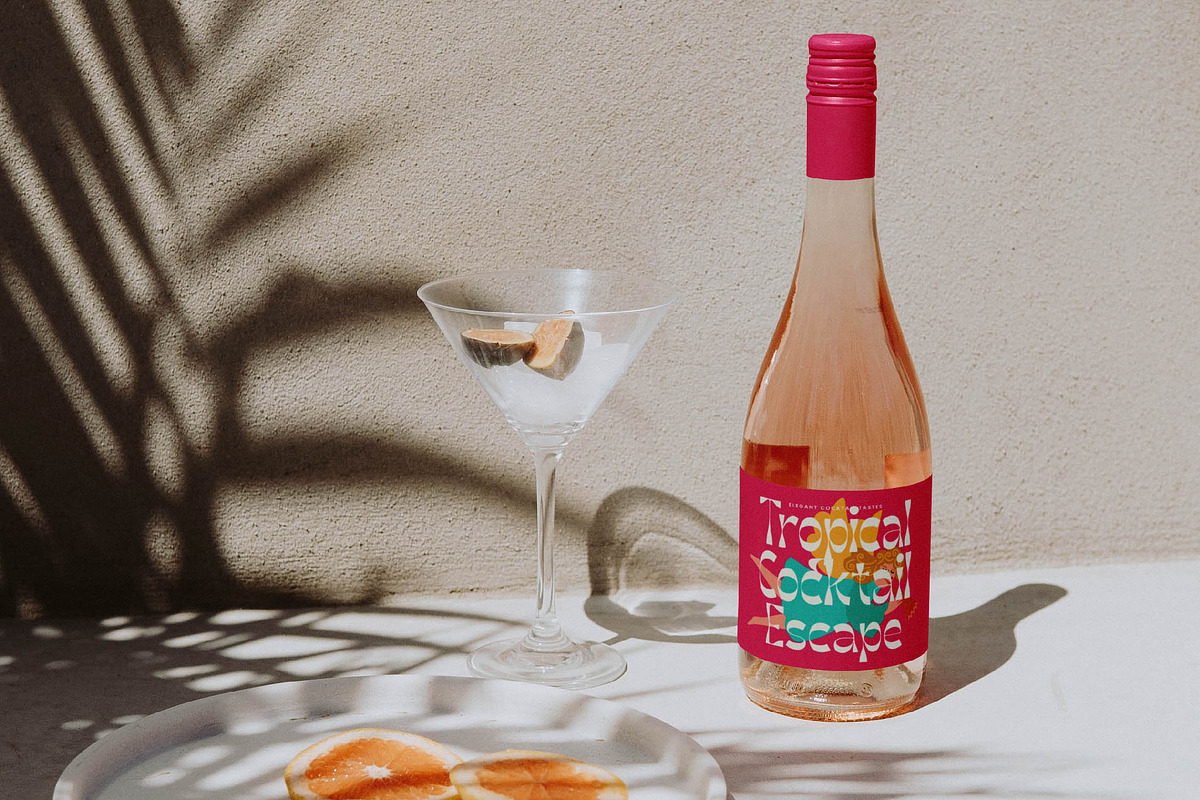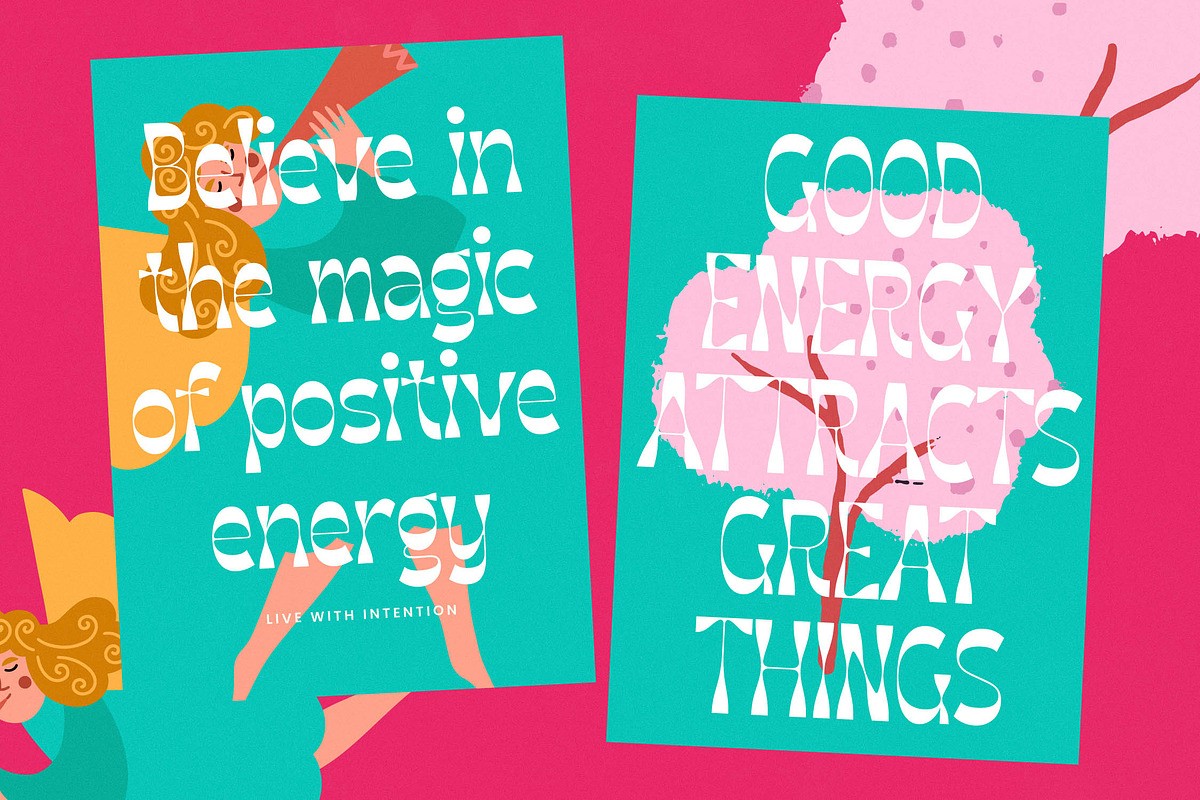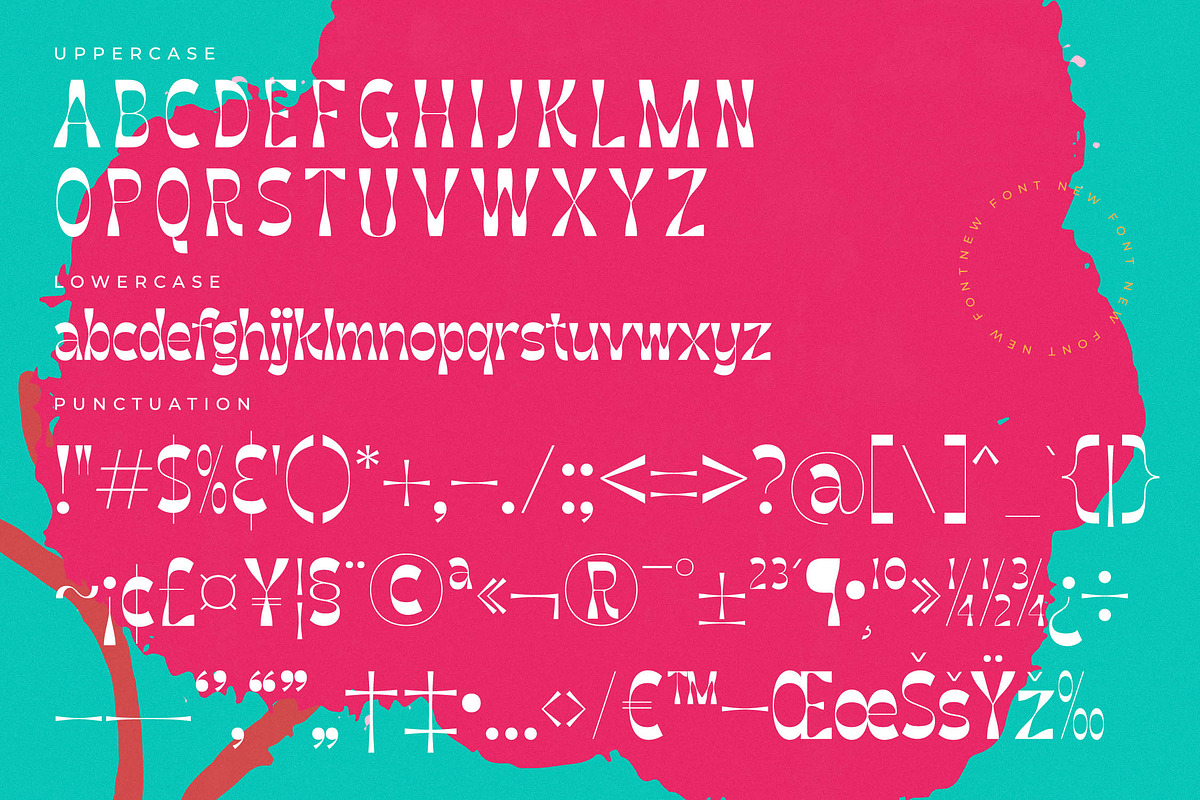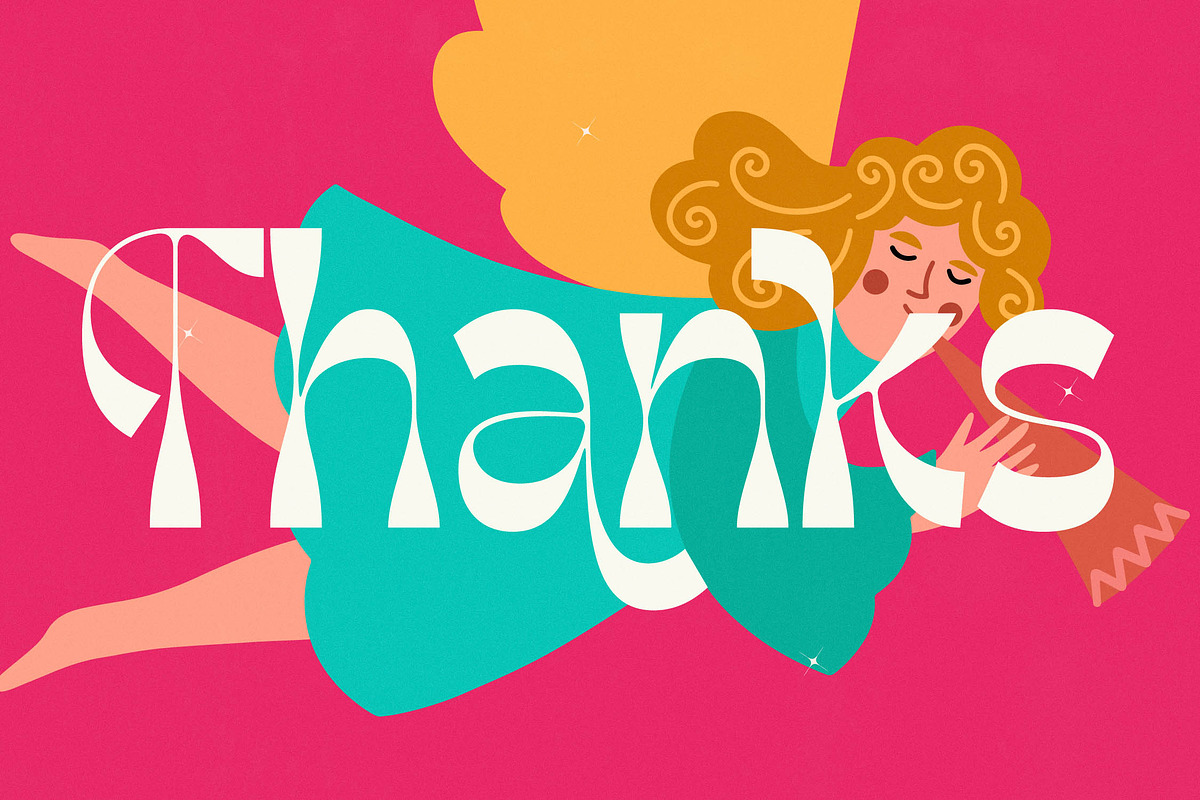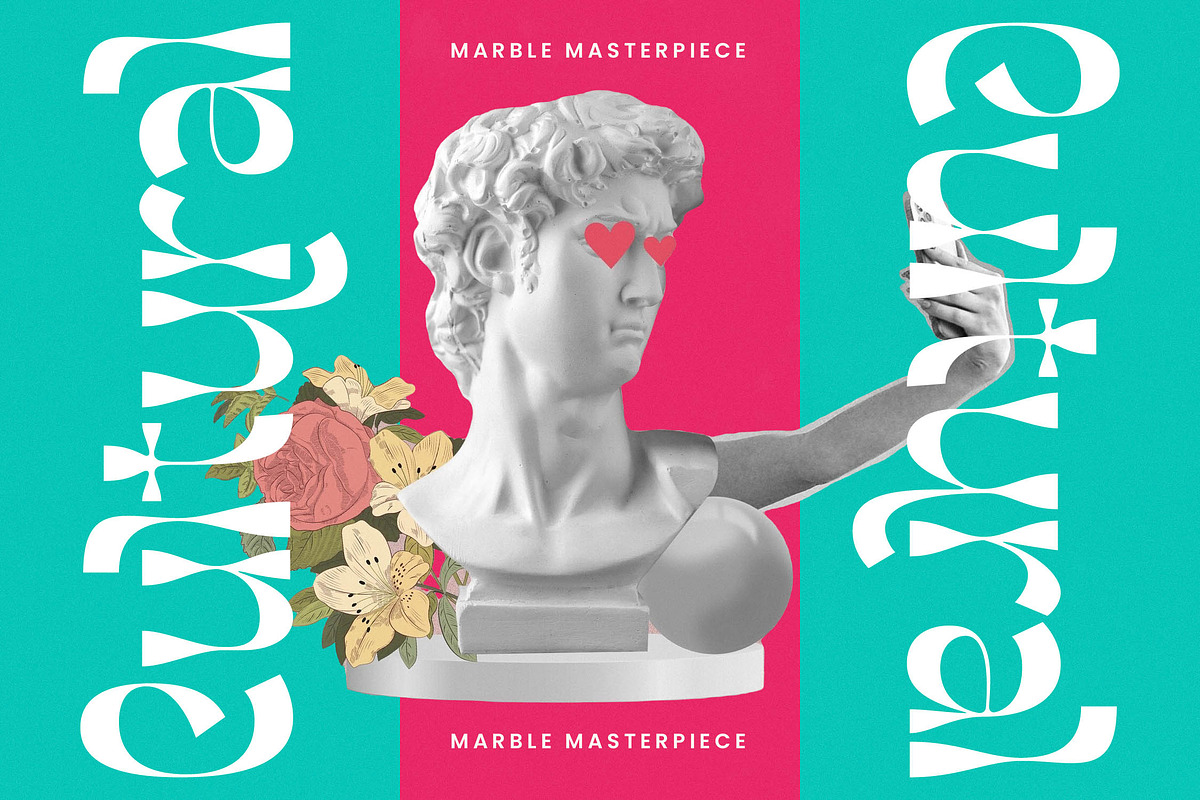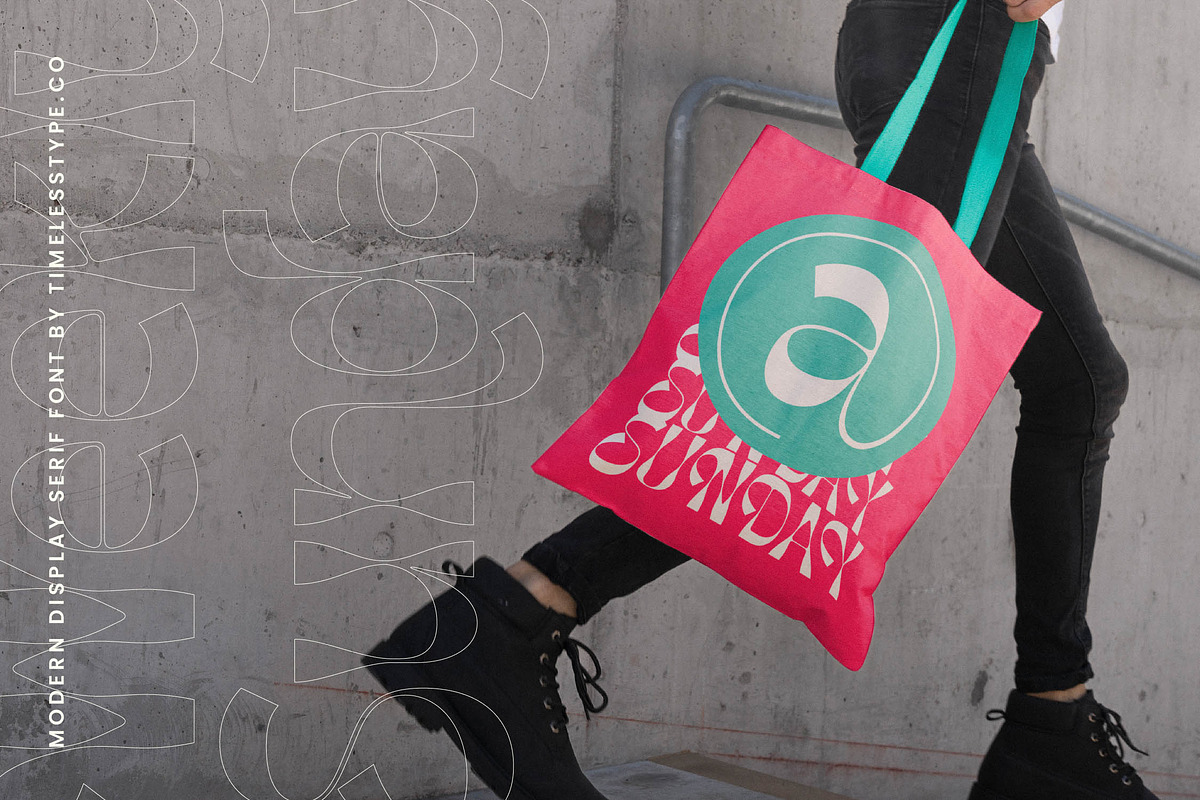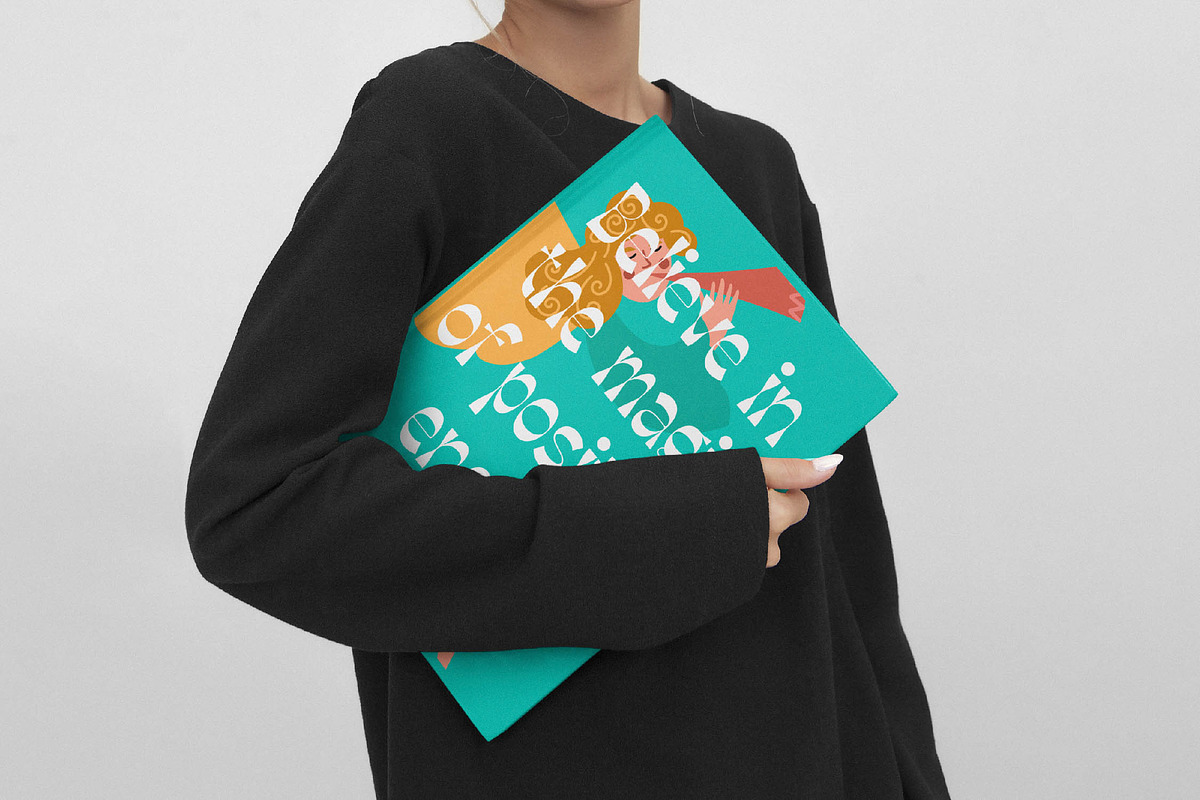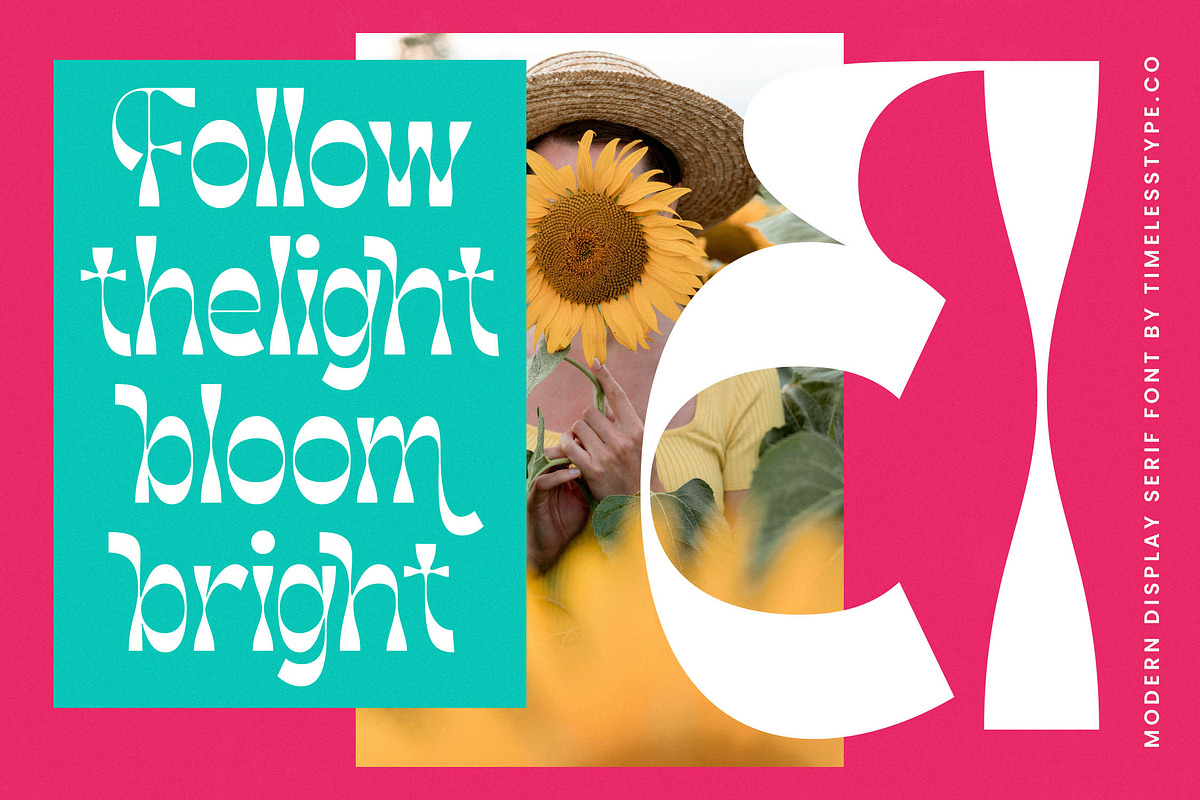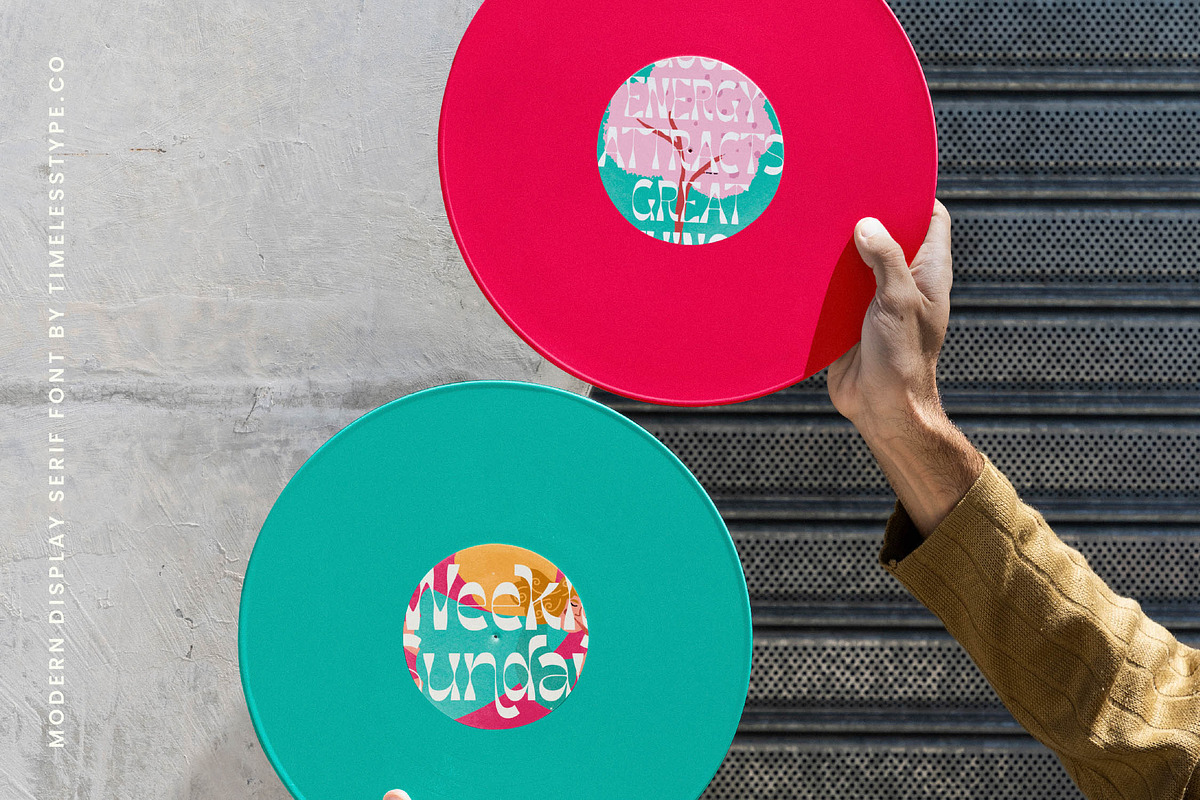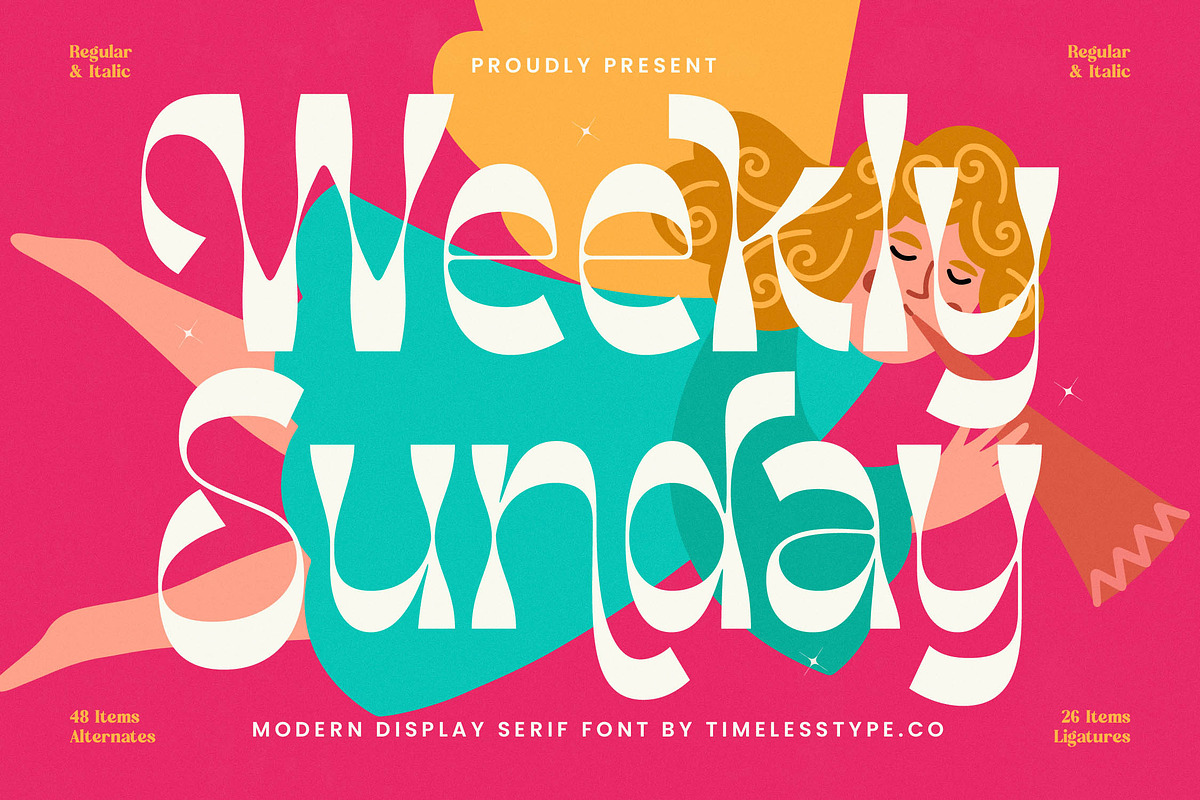
Weekly Sunday Modern Display Serif
Step into a world of effortless charm and artistic fluidity with Weekly Sunday. This typeface captures a perfect balance between nostalgic warmth and avant-garde sophistication for the discerning designer.
Inspired by the organic rhythms of nature and the psychedelic curves of the late 60s, this font evokes a sense of flowing movement. Its liquid-like forms suggest a leisurely morning where time stretches and imagination takes flight in every stroke.
This modern serif display is engineered for maximum branding impact, offering a luxury typography solution that feels both bespoke and timeless. With its high-contrast serif details and unique liquid silhouettes, it functions as a premier editorial font for those who refuse to blend in with the crowd.
Riding the wave of the modern serif trend, this typeface meets the growing demand for character-driven typography in a crowded digital landscape. It serves as a cornerstone for designers seeking editorial display fonts that bridge the gap between retro-revival and future-forward aesthetics.
Perfectly suited for high-end logo design and comprehensive branding systems, it excels in creative editorial layouts and luxury packaging. From high-street fashion campaigns to elegant wedding stationery, its versatile nature ensures a standout presence across all print and digital mediums.
The set is packed with creative alternates and unique ligatures to help you create custom-tailored text compositions with ease. It also includes comprehensive multilingual support and international characters, complemented by decorative swashes to ensure your message resonates globally.
- Ligature 26 Alternate 48